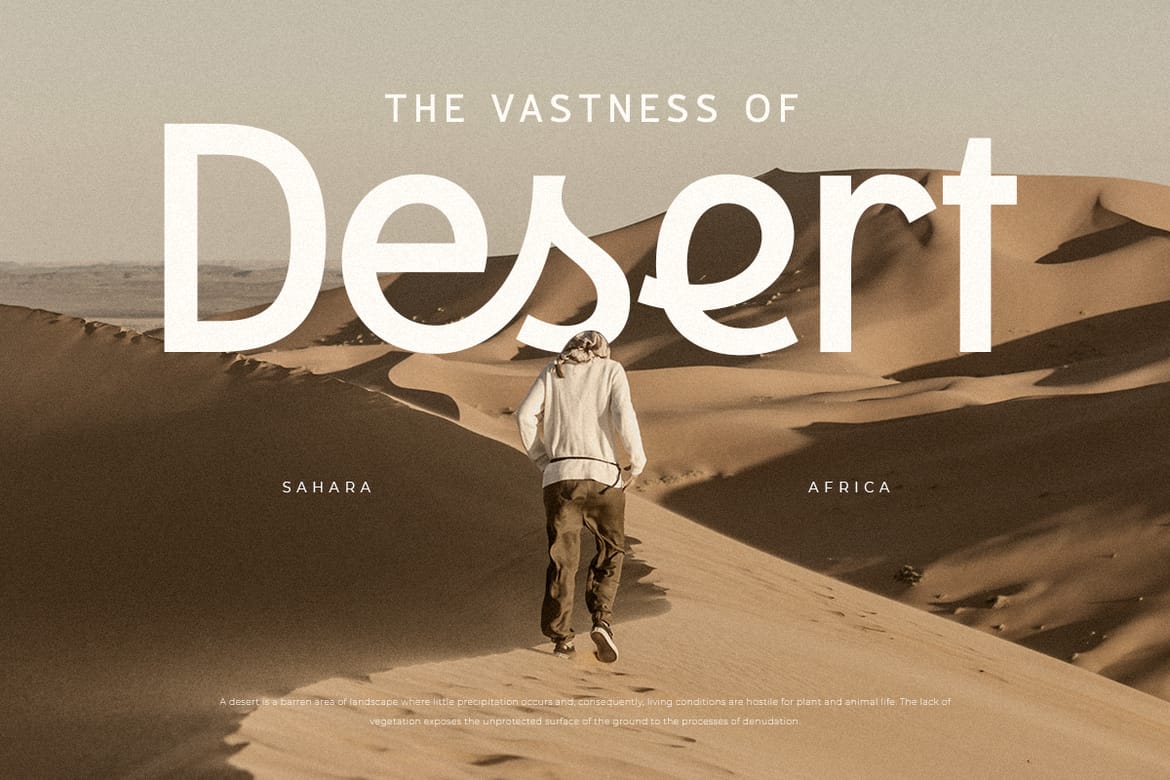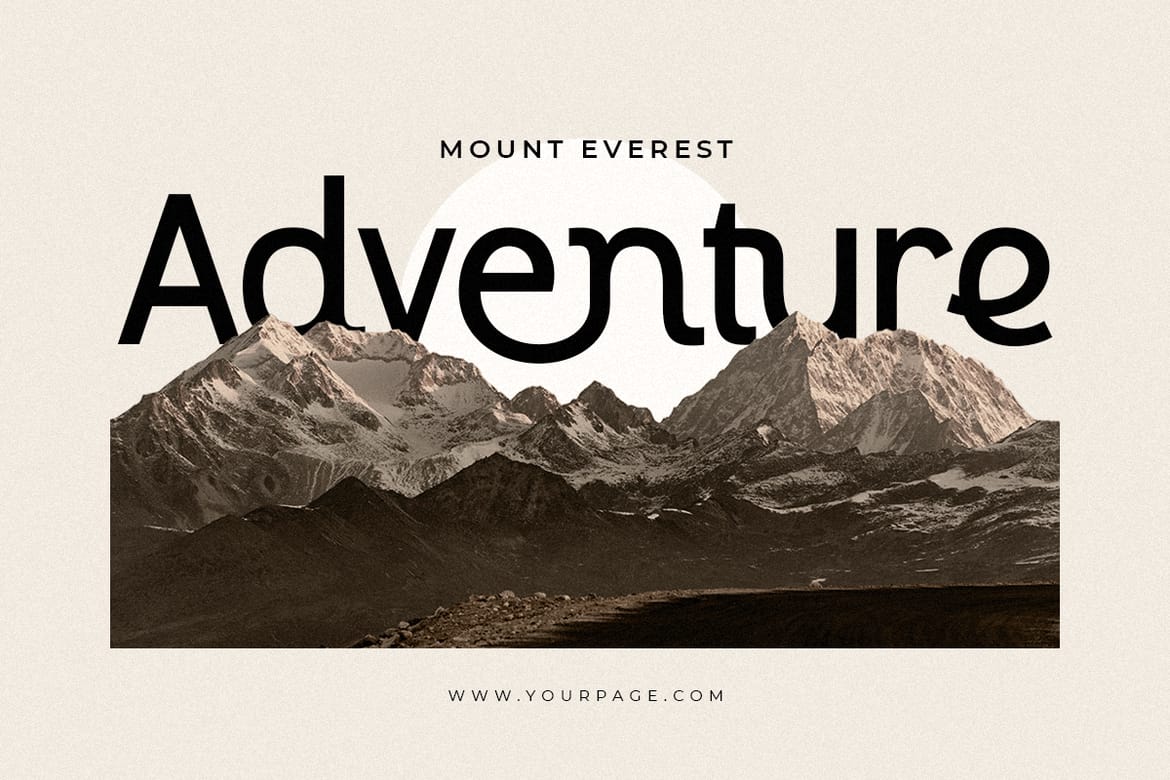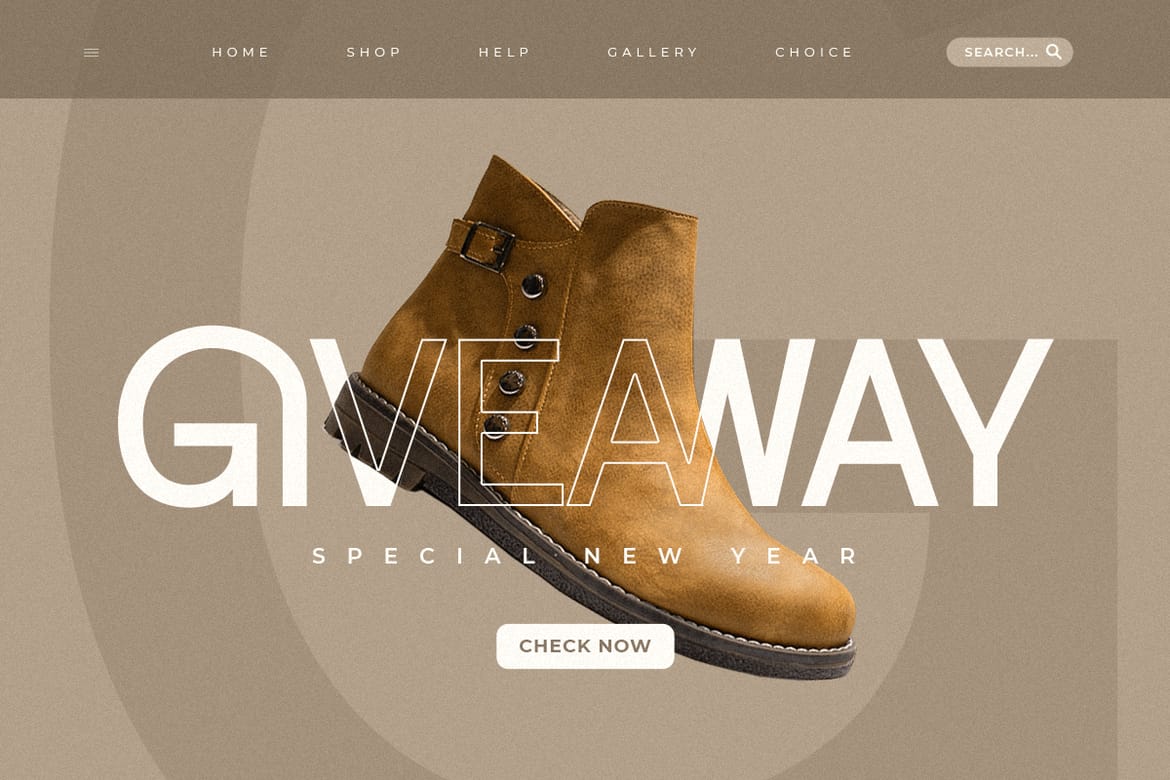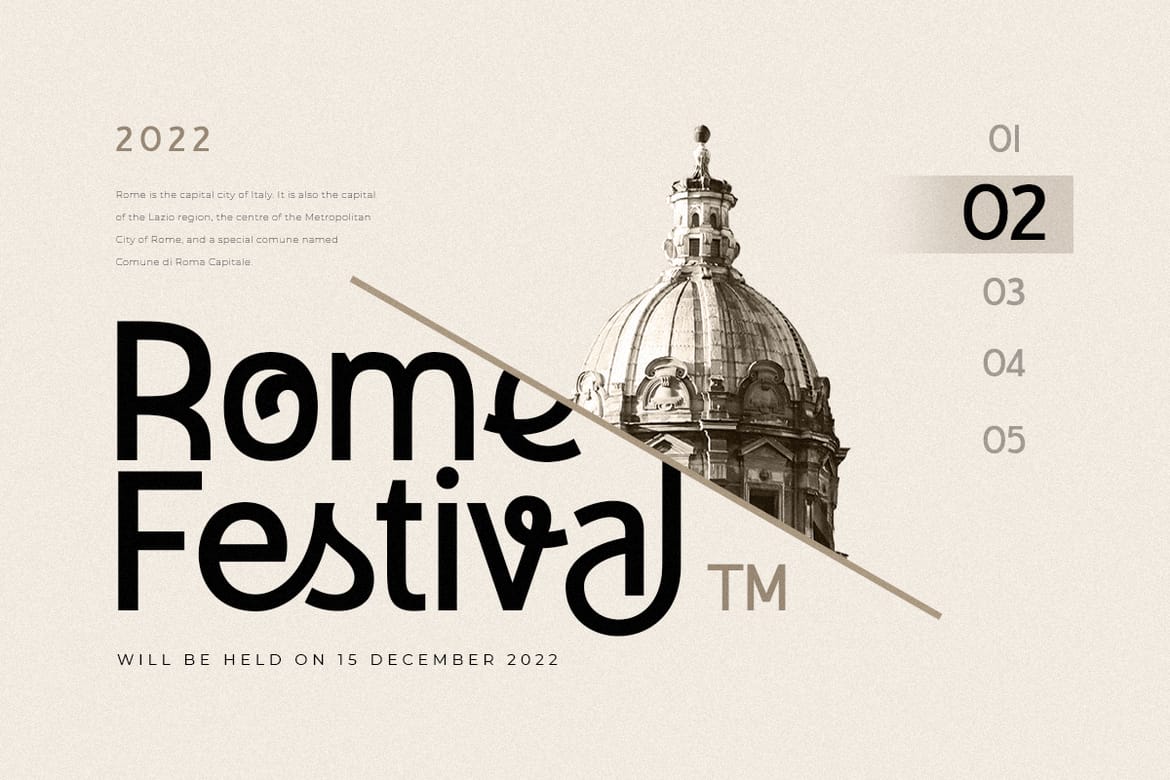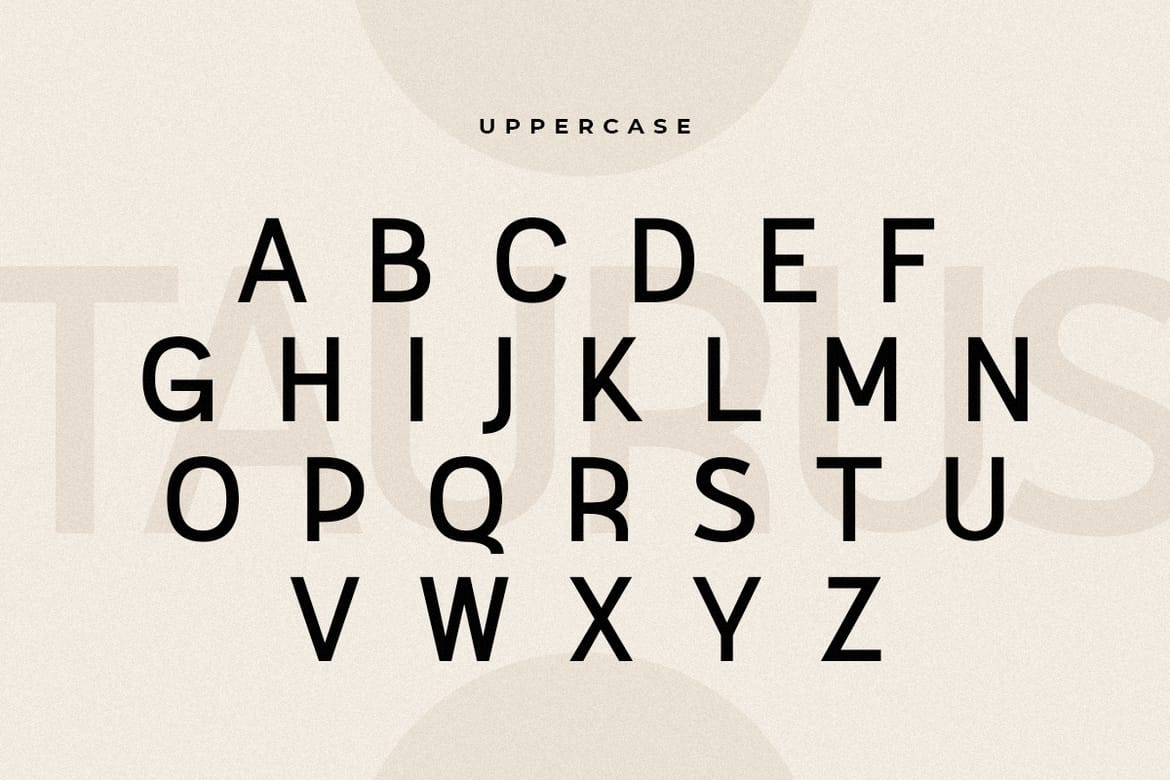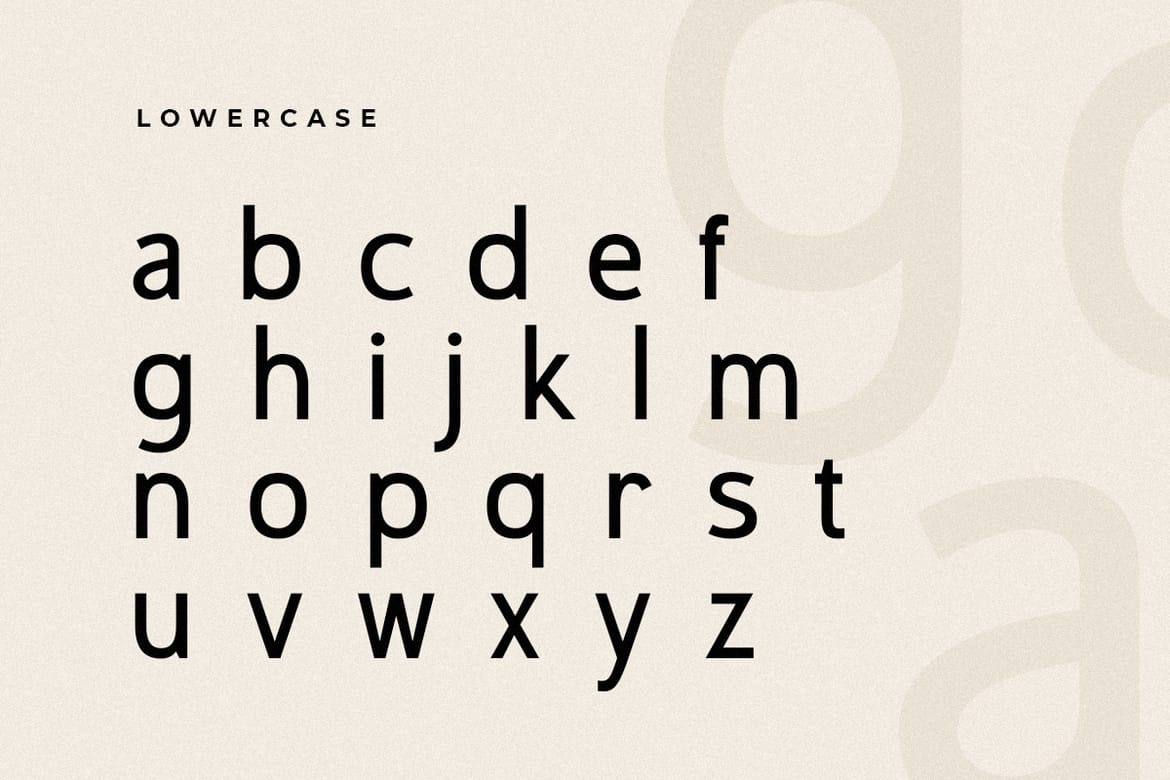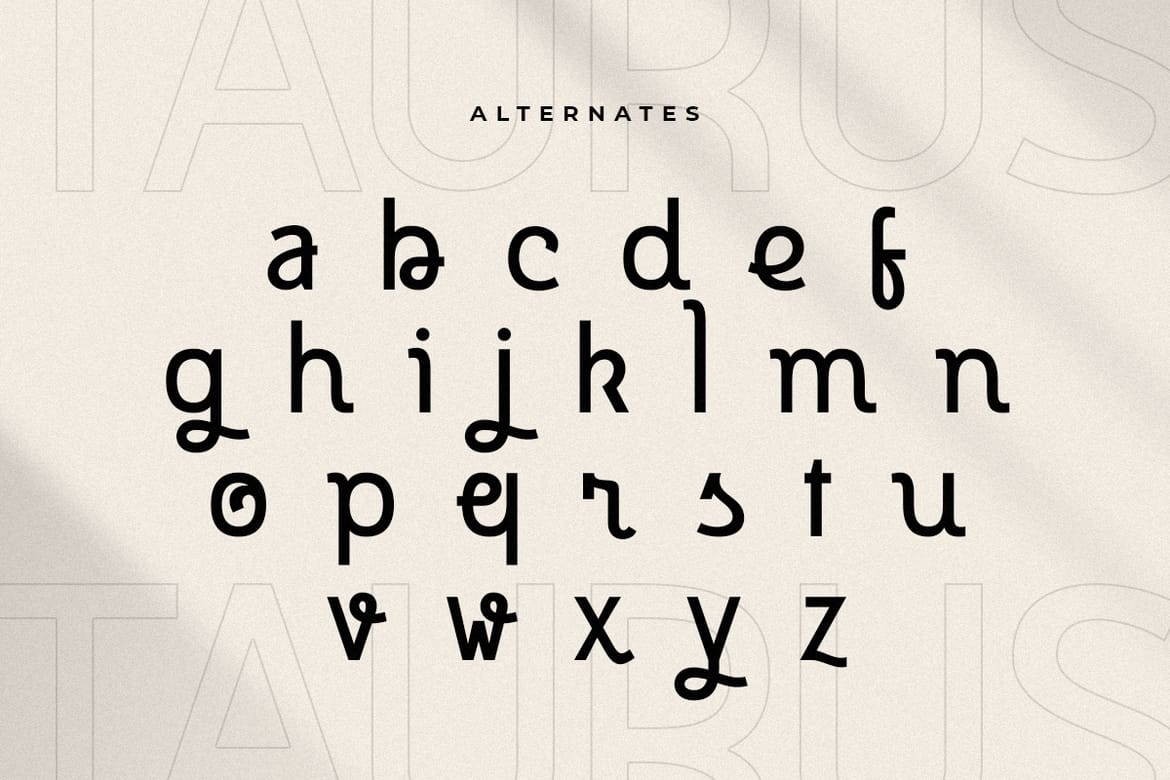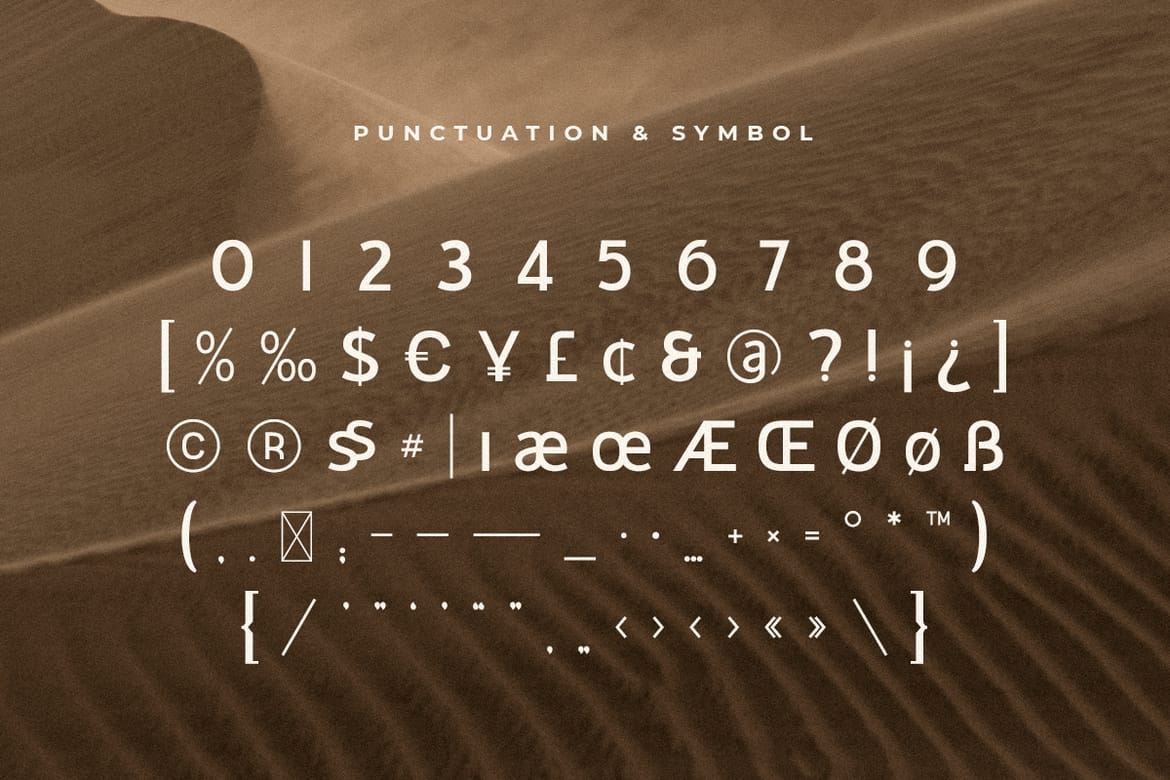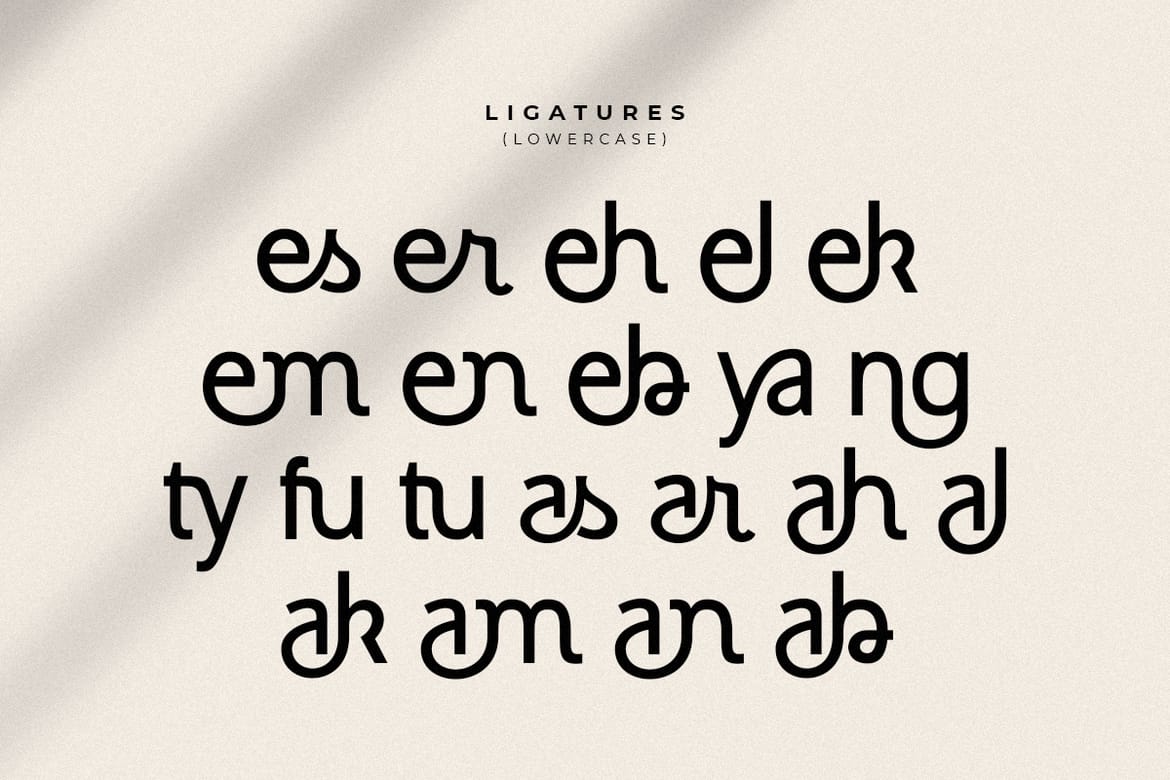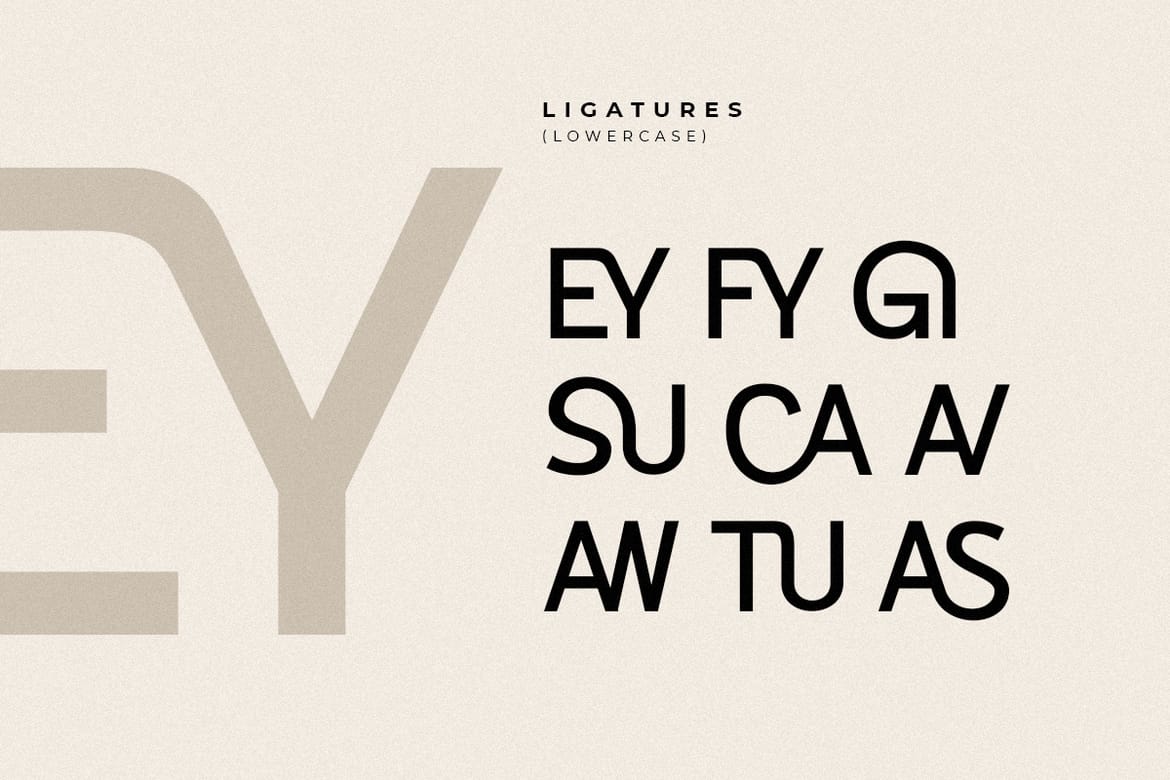
A Sans serif that we created special for unique branding needs, with extra ligatures in unique shape will be ready to add value of your brand. It so nice to leverage designer or product owner that need solutions to make their design look more unique and modern. And specially for this font, We prepared any ligatures characters to help you create unlimited variations for your creative needs.
Taurus Modern Unique Stylish Font ready with:
Any options to get creative variations (combination of Ligatures)
Preview as a inspirations that you can do with Taurus font
Ready with Lowercase and Uppercase characters
- Unique ligature branding font
- Unlimited creative style variations